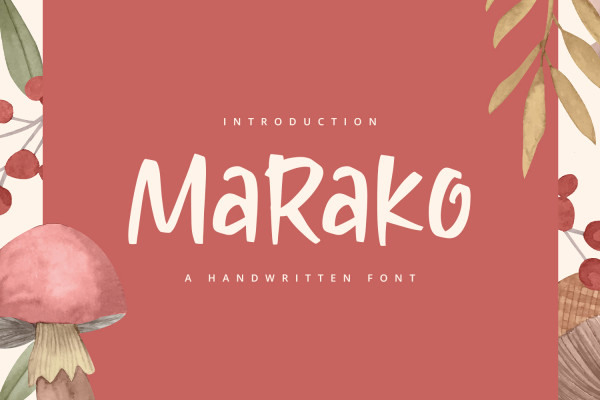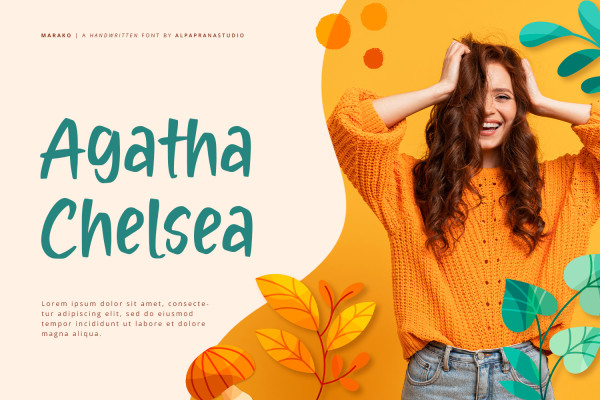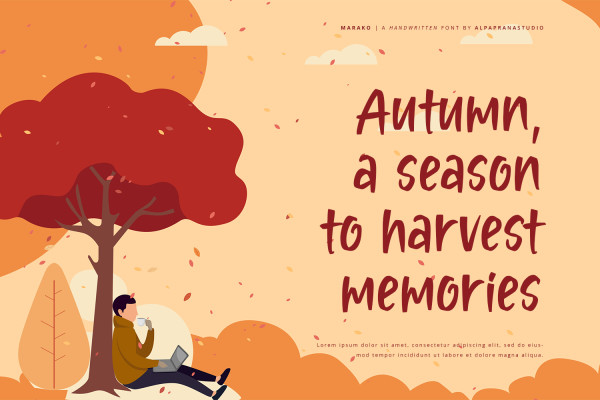
Marako Font
Marako Font is a handwritten font with modern feels. It will be perfectly used for Branding, Logo Design, Lettering, Logotype, Clothing, Poster, magazine, packaging, posters, shopping bags, t-shirts, book covers, photography, special events and other design project.